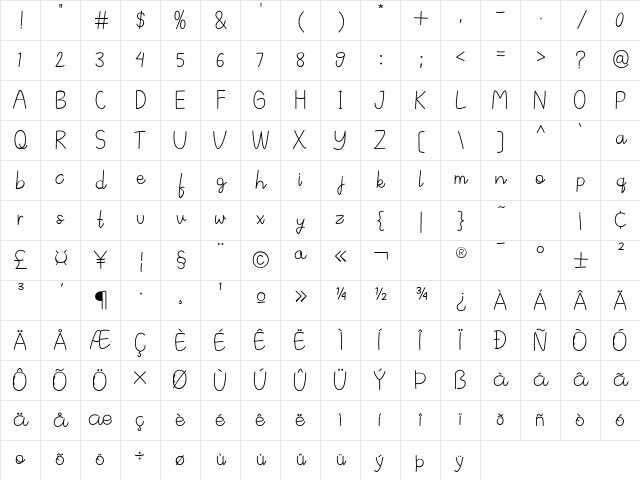
Vinally Regular
Complete Vinally Regular glyph index. Displaying only characters natively supported by Vinally Regular font.
Design Context for Vinally
Vinally is a composed and adaptable typeface that performs quietly and consistently across a wide range of design contexts.
Pro Tip: Use Vinally in both headline and body roles to test its range before committing to a single application.